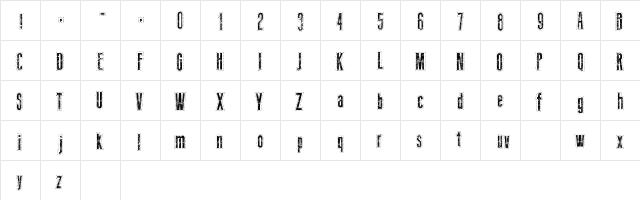
Needlework US Regular
| Designer | Galdino Otten |
Design Context for Needlework US Typeface
Needlework US is a composed and adaptable typeface that performs quietly and consistently across a wide range of design contexts.